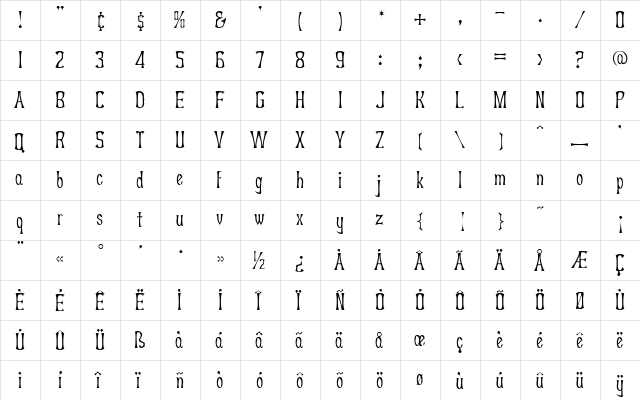
BizaroRES Regular
Design Context for BizaroRES Typeface
BizaroRES offers clean, dependable letterforms without strong stylistic allegiance, making it a practical choice for designers who need flexibility.
Pro Tip: Use BizaroRES in both headline and body roles to test its range before committing to a single application.